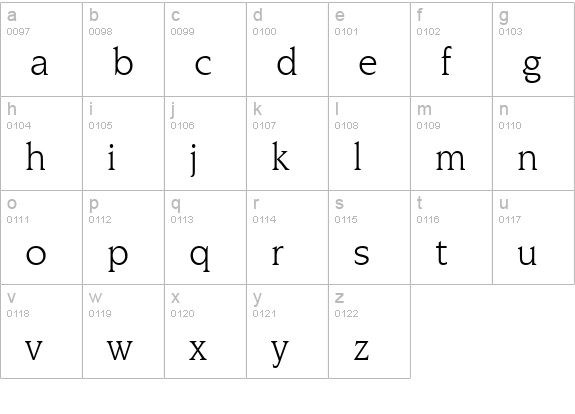
Novarese Book BT Font Details
Novarese Book BT is a comfortable, highly readable variant in the Novarese typeface family \xE2\x80\x94 well suited to long-form body text, articles, and editorial content.
Novarese Book BT is a classic and elegant serif font that exudes sophistication and timelessness. Its refined shapes and balanced proportions make it ideal for a wide range of design projects, from elegant invitations to professional documents. The graceful serifs and clean lines of Novarese Book BT give it a polished and sophisticated appearance that is sure to elevate any design. What sets Novarese Book BT apart is not only its timeless beauty but also its versatility. Whether you are creating a formal event invitation or a professional report, this font will add a touch of elegance and refinement to your project. With its clear legibility and graceful curves, Novarese Book BT is a versatile choice for both print and digital designs. The best part? Novarese Book BT is available for free download at FontsMarket.com. This means that you can easily access this exquisite font and incorporate it into your design projects without any cost. Don't miss out on the opportunity to add the timeless beauty of Novarese Book BT to your designs today!